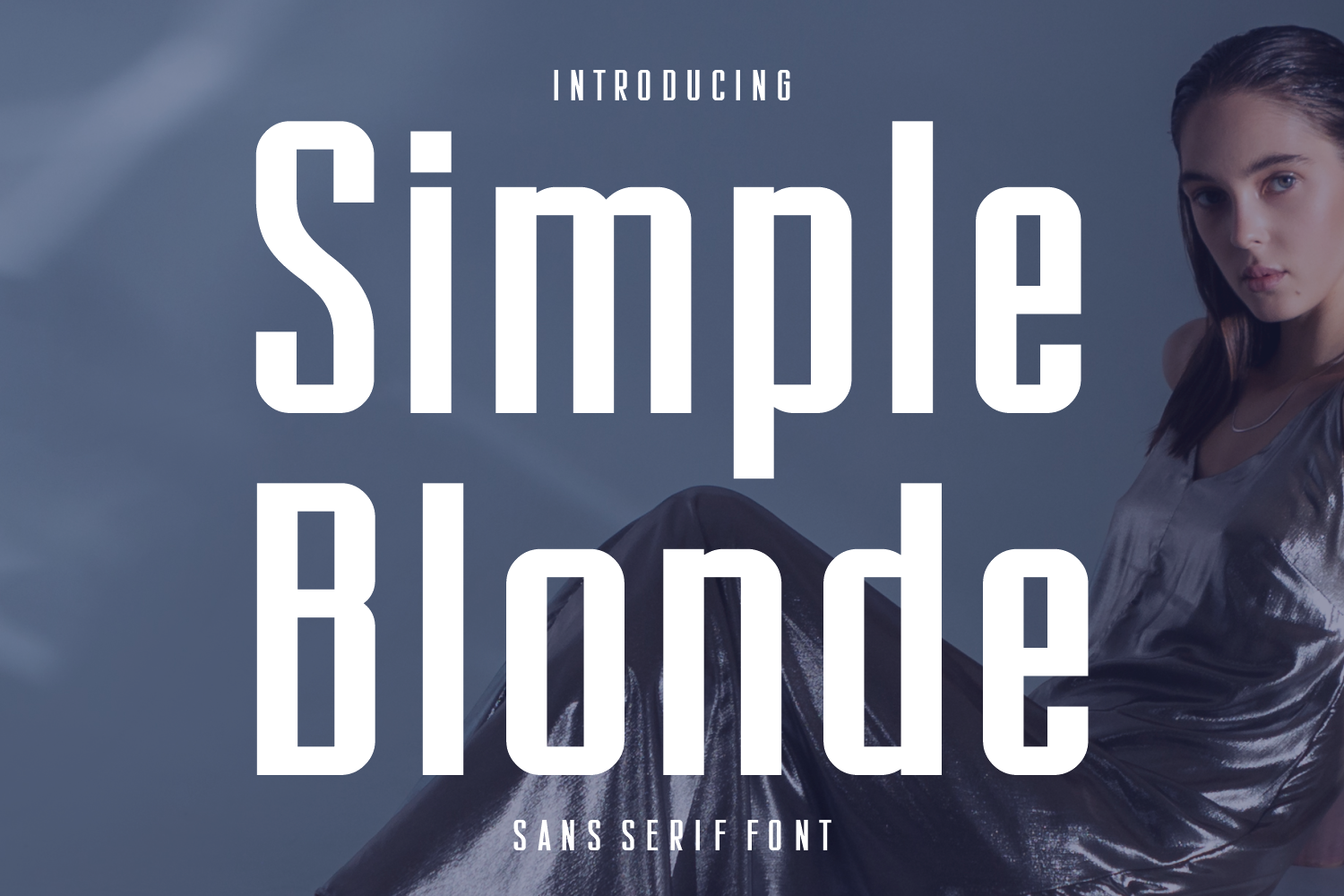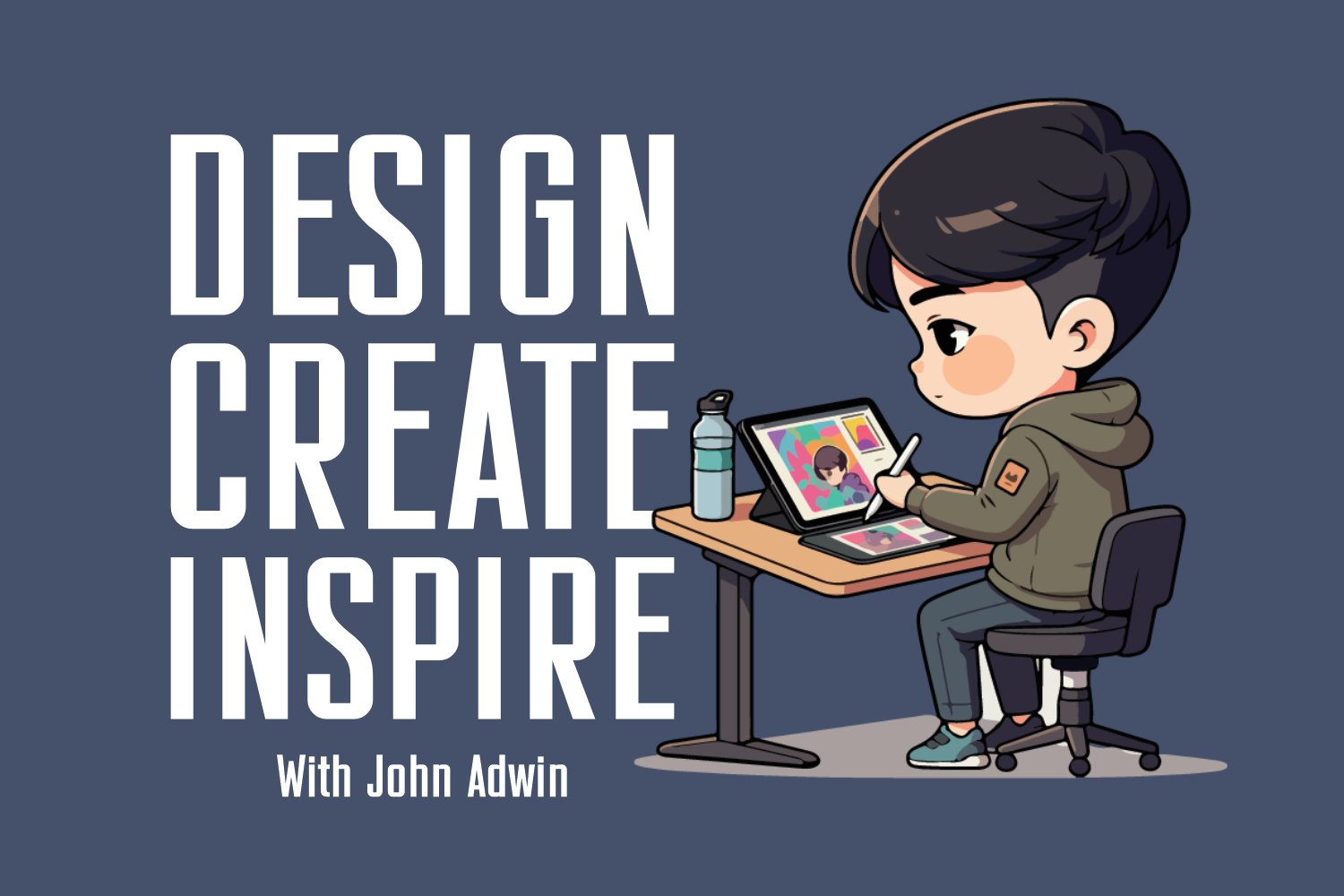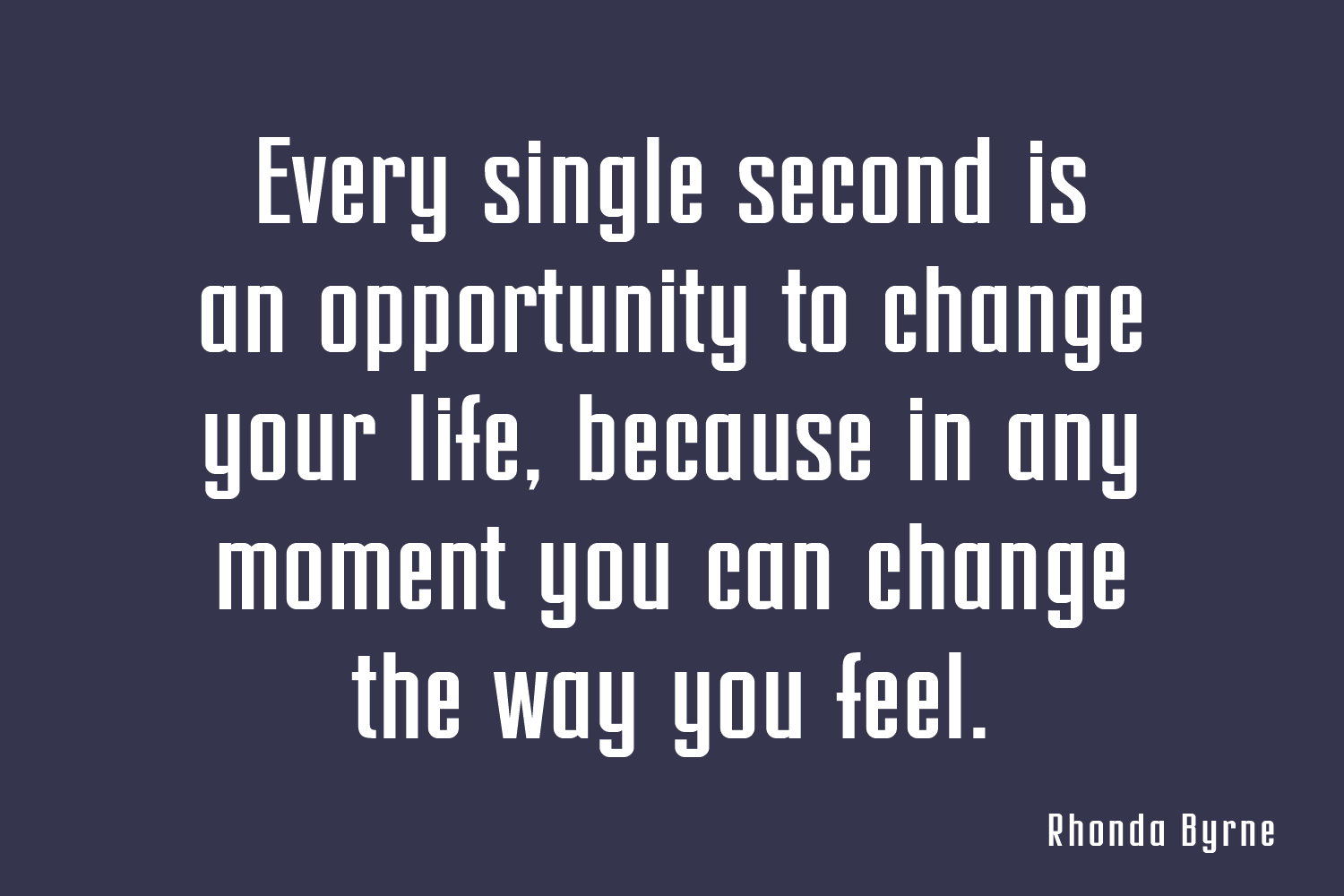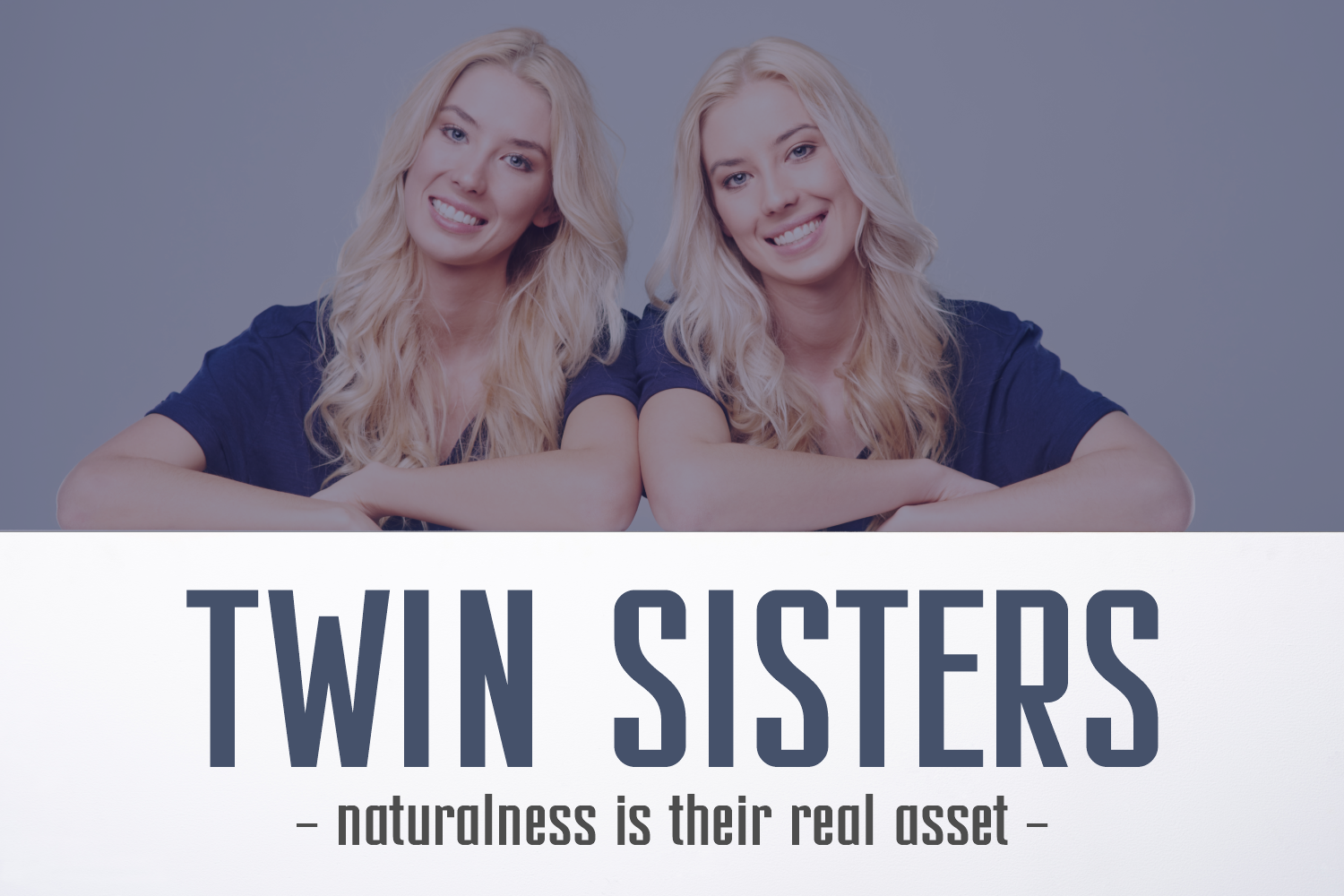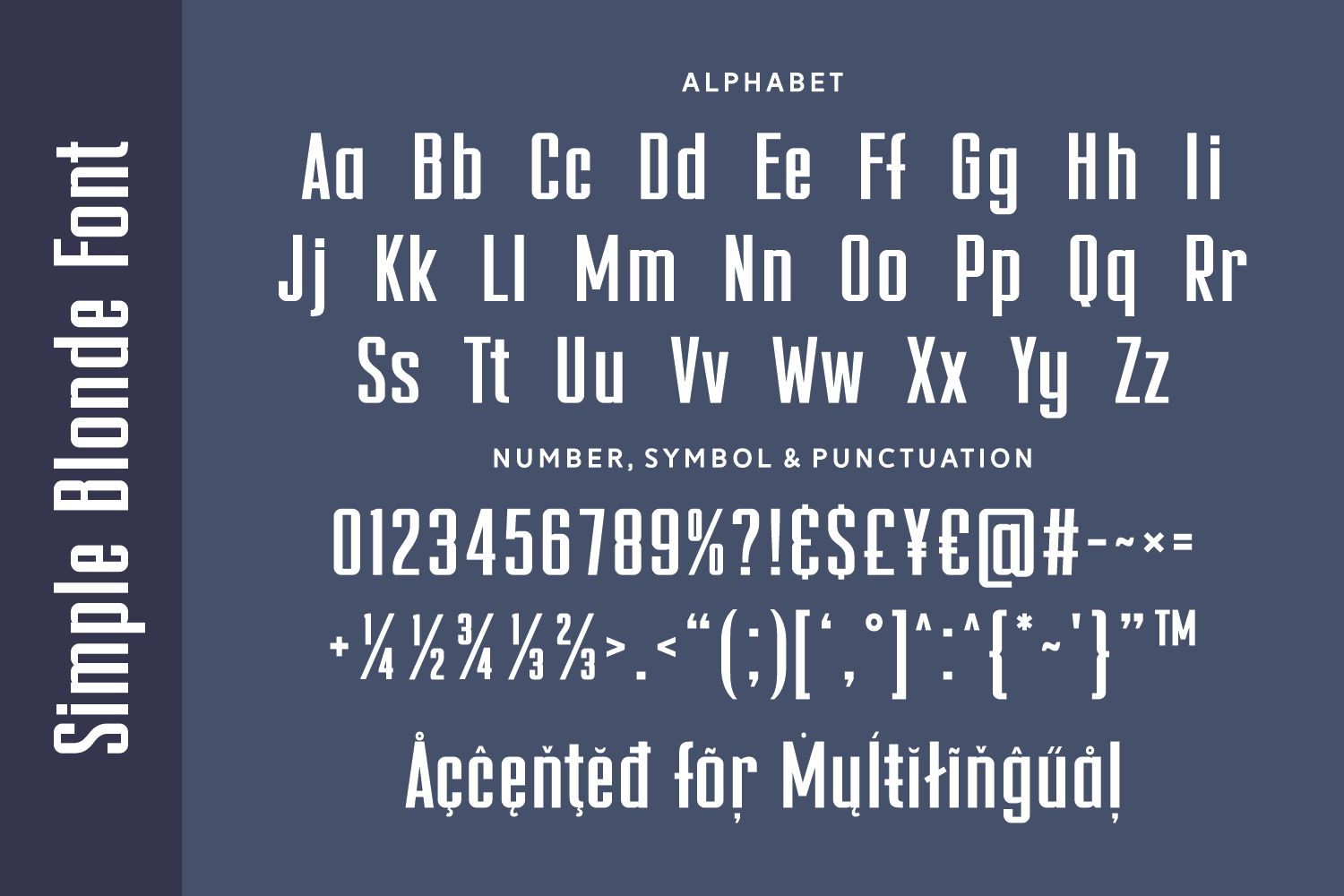
Simple Blonde
Simple Blonde is a tall and condensed sans serif typeface exuding modern minimalism and elegance. Perfect for fashion editorials, headlines, and branding, it delivers high impact while maintaining refined sophistication.